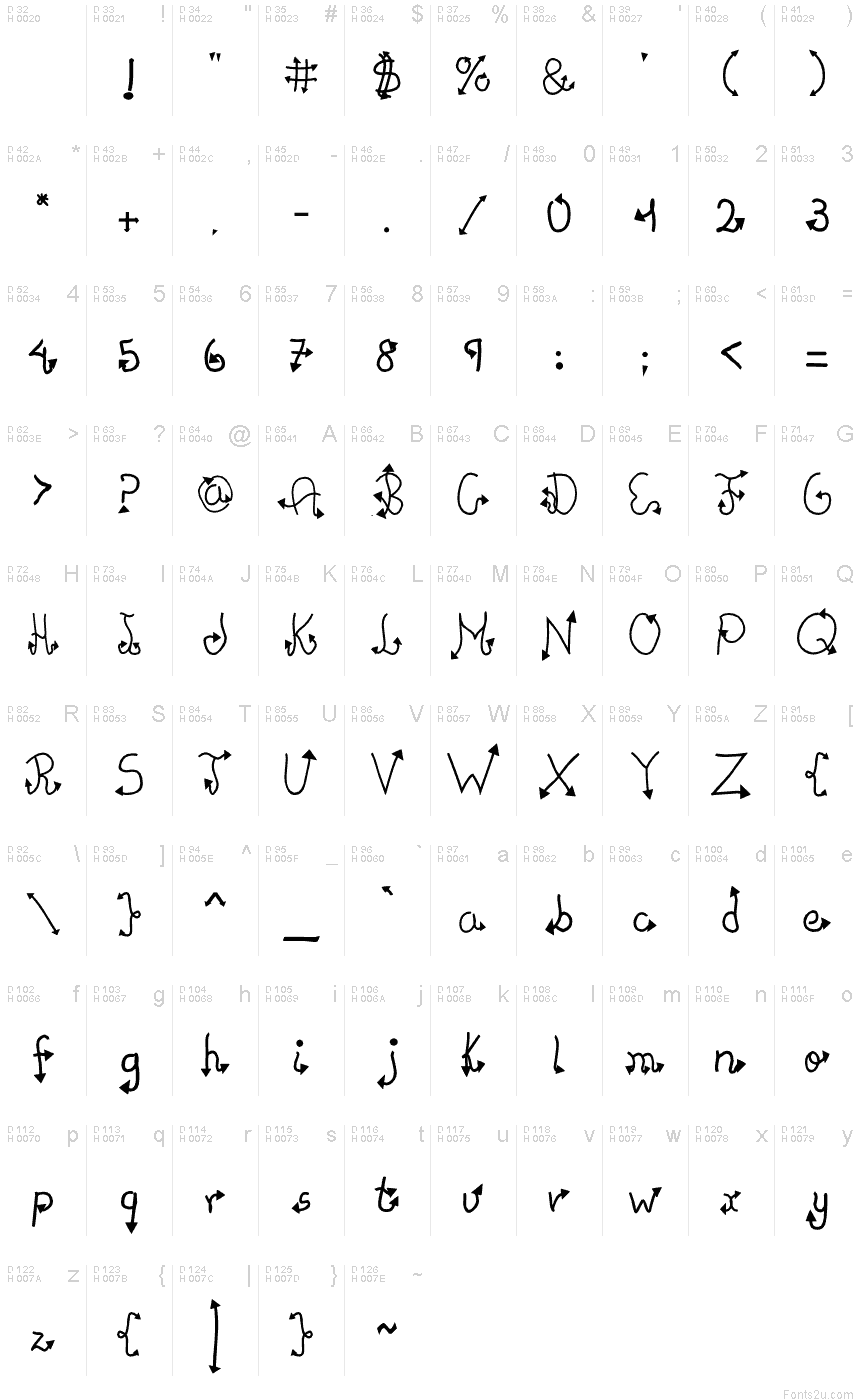
Cachuelin Letter by Valeria Herrera of Pastaza Type is a free graffiti script with loose, continuous strokes and arrow-tipped details. Its letters stretch and loop in uneven directions, mixing narrow forms with broad, open curves. The effect is restless and raw.
Graffiti culture gives this font a clear place in music posters and streetwear graphics, where the arrows can become part of the surrounding artwork. It also suits skate merchandise and youth event branding, especially for designs built around tagging, movement, and urban illustration.